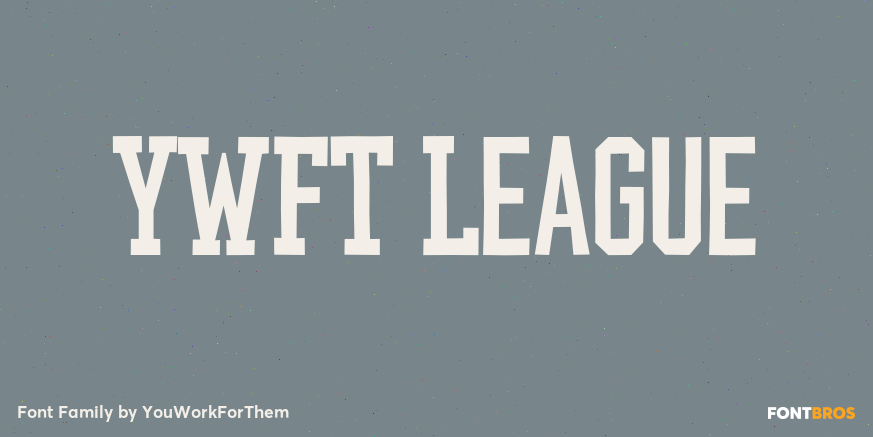
YWFT League
About YWFT League
You\’ve been working hard, and your team is really looking good this year. We\’d like to invite you to join the League. YWFT League, that is. Inspired by high school and college football jerseys, YWFT League is in keeping with the strict and rigid style…